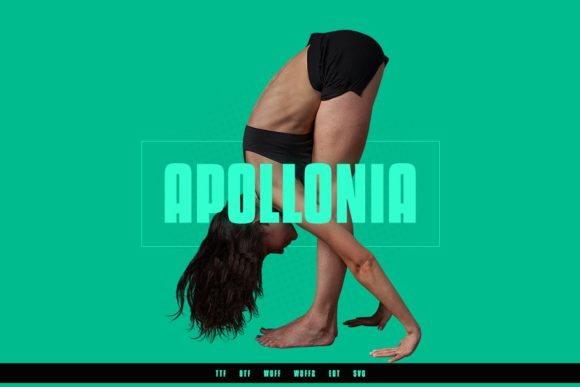
The Designer’s Delight: Apollonia Pro Font
I still remember the frustration of working on a project, hours poured into designing a beautiful layout, only to find that the font I chose didn’t quite live up to my expectations. The text looked dull, and my entire design felt flat. It was then that I stumbled upon Apollonia Pro Font, a bold and simple sans serif font that instantly elevated my work. In this article, I’ll share my experience with Apollonia Pro, its features, and how you can make the most of it in your creative projects.
An Honest Review of Apollonia Pro
- ✨ Bold and Simple Design: Apollonia Pro’s clean lines and bold appearance make it perfect for headlines, titles, and emphasis text.
- ✅ High Versatility: This font is suitable for a wide range of projects, from branding and advertising to crafting and DIY tutorials.
- 💡 Excellent Legibility: Even at smaller sizes, Apollonia Pro remains clear and easy to read, making it ideal for body text and captions.
While Apollonia Pro is an excellent font, there are a few things to keep in mind:
- 🤔 Limited Italics: Apollonia Pro’s italic versions are not as extensive as some other fonts, which might limit its use in certain design contexts.
- ⚠️ Not Suitable for Body Text: While legible, Apollonia Pro’s bold design makes it more suited for headings and titles rather than lengthy body text.
- Experiment with OpenType features, such as Stylistic Alternates, to add visual interest to your text.
The Story Behind Apollonia Pro
Apollonia Pro was designed with the goal of creating a bold, simple, and versatile font that could be used in a variety of creative projects. The designer aimed to craft a font that would be both modern and timeless, making it a great addition to any designer’s font library.
Q: What type of projects is Apollonia Pro best suited for?
A: Apollonia Pro is ideal for projects that require a bold and modern font, such as branding, advertising, and creative DIY tutorials.
Q: Does Apollonia Pro support OpenType features?
A: Yes, Apollonia Pro supports OpenType features, including stylistic alternates, glyphs, and ligatures, which can enhance your design and add visual interest.
Q: Is Apollonia Pro suitable for body text?
A: While Apollonia Pro is legible, its bold design makes it more suited for headings and titles rather than lengthy body text.